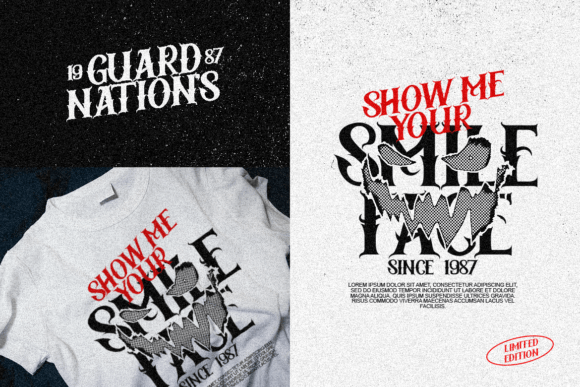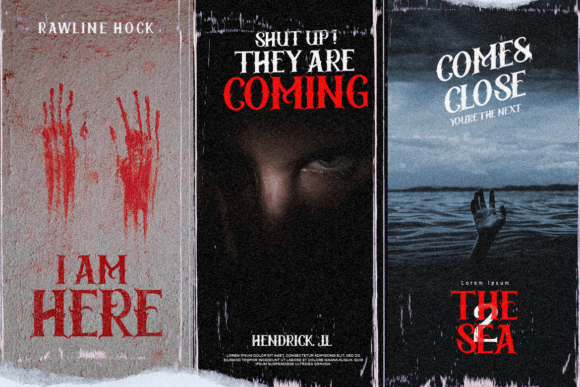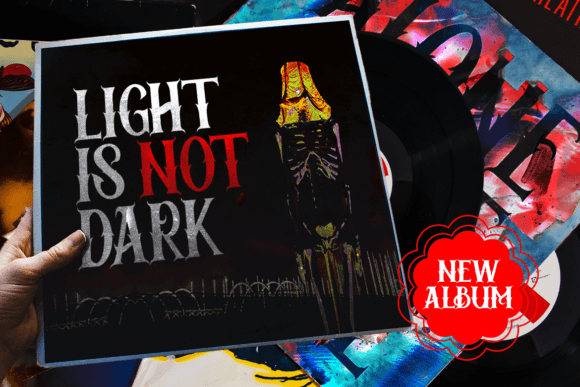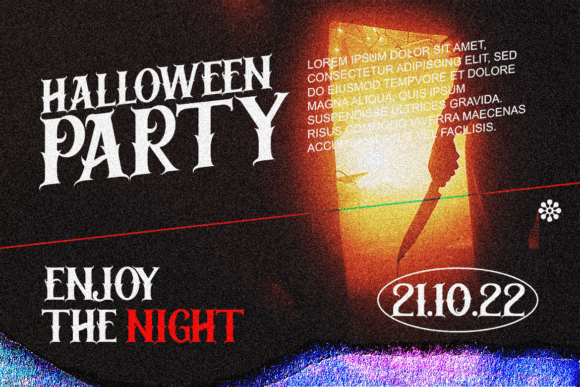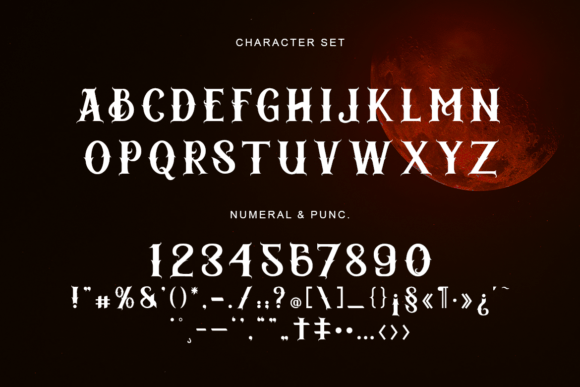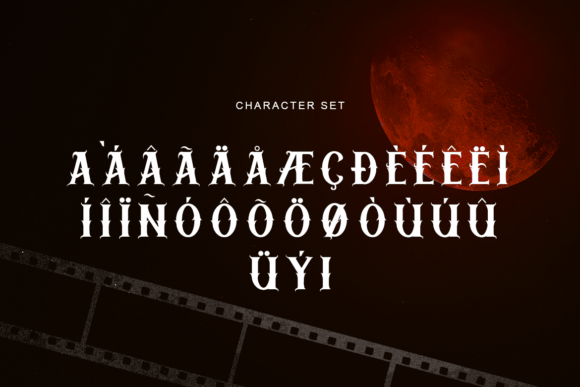
The Spooky Season’s Must-Have Font: Baracuda Monster
It’s that time of the year again – Halloween is just around the corner, and as designers, crafters, and creative hobbyists, we’re on the lookout for the perfect font to give our projects a spooky vibe. I still remember the year I was working on a Halloween-themed party invitation, and I just couldn’t find the right font to convey that eerie feeling. The project was stalled, and I was on the verge of using a generic sans-serif font – but then I stumbled upon the Baracuda Monster font. It was love at first sight! 🎃
An Honest Review of Baracuda Monster
So, what makes Baracuda Monster a must-have font for your spooky projects? Let’s dive into the good stuff and a few quirks I’ve discovered.
• Horror movie feel: Baracuda Monster nails that horror film vibe, making it perfect for Halloween projects, gothic designs, or anything that needs a creepy touch.
• PUA encoded: This font is PUA (Private Use Area) encoded, which means you can easily access all the glyphs and swashes without any hassle.
• 🎨 Versatility: While it’s designed for horror and gothic styles, Baracuda Monster can add a unique touch to various projects, from posters and invitations to crafts and DIY designs.
• 🤔 Glyph overload: With so many glyphs and swashes available, it can be a bit overwhelming to navigate. Take some time to explore the font, and you’ll get the hang of it!
• ⚠️ Legibility at small sizes: Like many decorative fonts, Baracuda Monster might not be the best choice for body text or small font sizes. Use it for headlines or titles to make the most of its impact.
While I couldn’t find any specific information on the designer behind Baracuda Monster, it’s clear that the font was created with horror and gothic styles in mind. Imagine a late-night design session, surrounded by horror movies and spooky sound effects – that’s probably where Baracuda Monster was born! 😱
Q: What type of projects is Baracuda Monster best suited for?
A: Baracuda Monster is perfect for horror-themed projects, gothic designs, Halloween parties, and any creative endeavor that needs a spooky touch.
Q: Is Baracuda Monster easy to use for beginners?
A: Yes! Despite having many glyphs and swashes, Baracuda Monster is relatively easy to navigate, especially with PUA encoding.